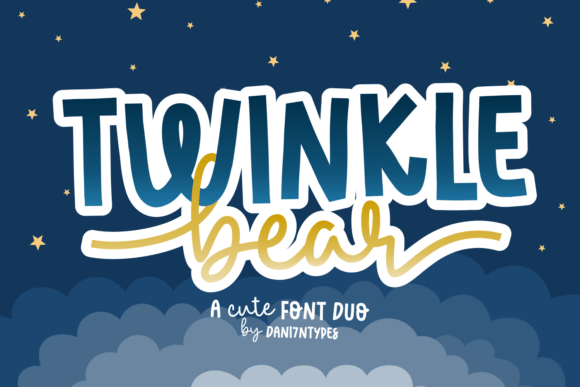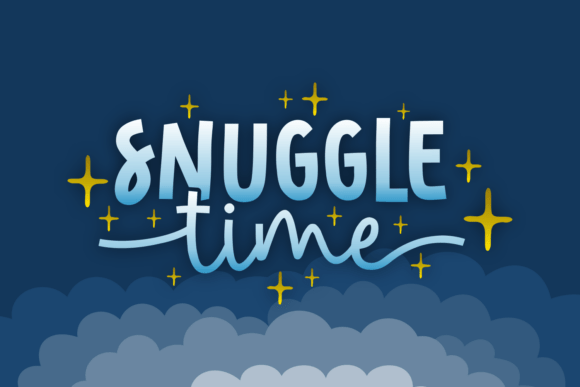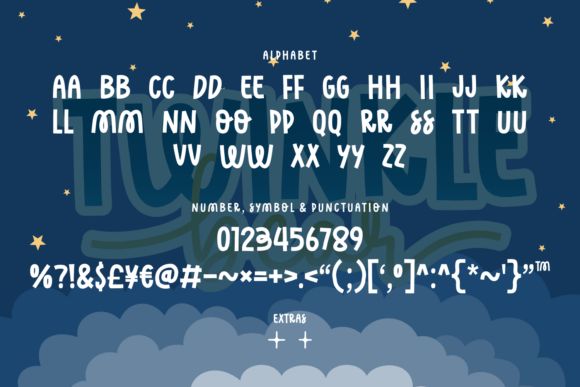
Twinkle Bear Scipt Font
Twinkle Bear – A Cute Font Duo
Bring a touch of magic to your designs with Twinkle Bear, a charming font duo that combines bold, playful letters with a sweet handwritten script. Perfectly balanced, this duo is designed to make your projects shine with cuteness and creativity.
Whether you’re working on greeting cards, children’s books, posters, branding, or playful quotes, Twinkle Bear will add a warm and whimsical touch that stands out. Its bold display style is fun and eye-catching, while the script adds a lovely personal feel—making them a perfect pair for countless creative ideas.
Let your designs sparkle like the night sky with Twinkle Bear Font Duo!